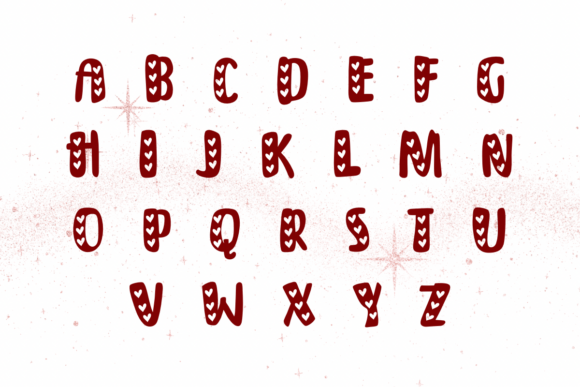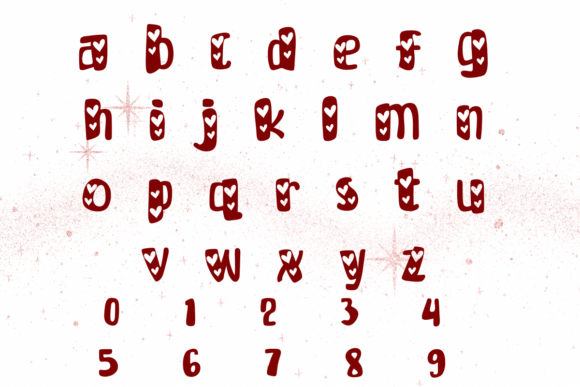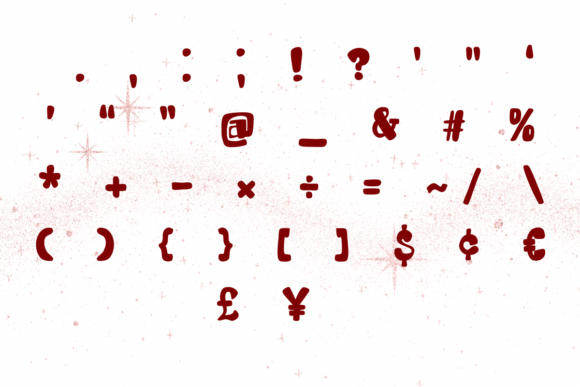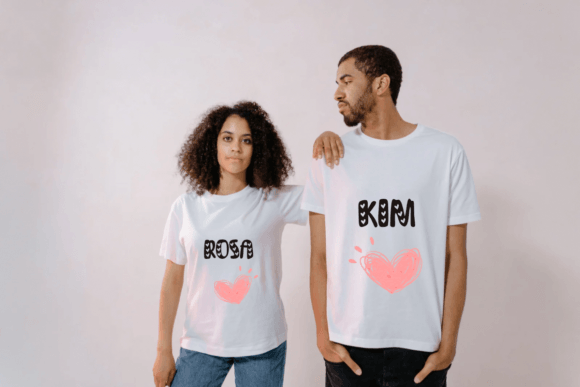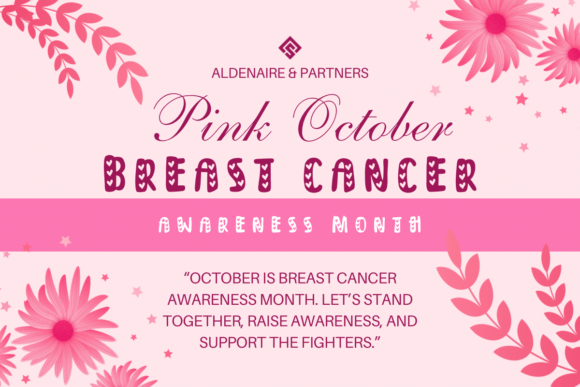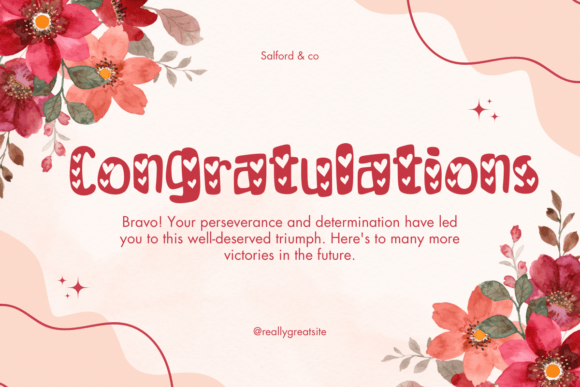
Cute Hearts Valentine Font: The Perfect Addition to Your Font Library
As the most romantic day of the year approaches, designers and crafters are on the lookout for the perfect fonts to make their creations stand out. If you’re looking for a gorgeous decorative font that screams Valentine’s Day, look no further than Cute Hearts Valentine Font. This stunning font is an incredible asset to any font library, and we’re excited to dive into its features and benefits.
What is Cute Hearts Valentine Font?
Cute Hearts Valentine Font is a beautifully designed decorative font that is perfect for Valentine’s Day-themed projects. Its unique and playful design features hearts, flowers, and other romantic elements that will make your creations truly special. The font is designed to be versatile and can be used for a wide range of projects, from Valentine’s Day cards and invitations to social media graphics and more.
Why You’ll Love Cute Hearts Valentine Font
So, what makes Cute Hearts Valentine Font so special? Here are just a few reasons why you’ll love adding it to your font library:
- Unique and Playful Design: The font features a unique and playful design that is sure to capture the spirit of Valentine’s Day. The hearts, flowers, and other romantic elements are intricately designed to add a touch of whimsy to your creations.
- Versatile: Cute Hearts Valentine Font is incredibly versatile and can be used for a wide range of projects, from digital to print. Whether you’re creating social media graphics, invitations, or cards, this font will help you create stunning designs.
- Easily Readable: Despite its decorative nature, Cute Hearts Valentine Font is easily readable, making it perfect for use in a variety of contexts.
- High-Quality: The font is designed with high-quality and crisp lines, ensuring that it looks great even at large sizes.
How to Use Cute Hearts Valentine Font
Cute Hearts Valentine Font is incredibly easy to use, even if you’re new to working with fonts. Here are a few tips to get you started:
- Pair it with Other Fonts: Cute Hearts Valentine Font pairs perfectly with other fonts, especially sans-serif fonts. Try pairing it with a clean font like Arial or Helvetica to create a beautiful contrast.
- Use it for Headings and Titles: The font is perfect for use in headings and titles, where its decorative elements can really shine.
- Experiment with Colors: Cute Hearts Valentine Font looks great in a variety of colors, from classic red and pink to more bold and bright colors.
Design Ideas Using Cute Hearts Valentine Font
So, what can you create with Cute Hearts Valentine Font? Here are a few design ideas to get you started:
- Valentine’s Day Cards: Create beautiful Valentine’s Day cards for friends, family, or loved ones.
- Social Media Graphics: Use the font to create stunning social media graphics, including Facebook posts, Instagram stories, and more.
- Invitations: Design beautiful invitations for Valentine’s Day-themed parties or events.
- Digital Papers: Create digital papers or scrapbook pages featuring Cute Hearts Valentine Font.